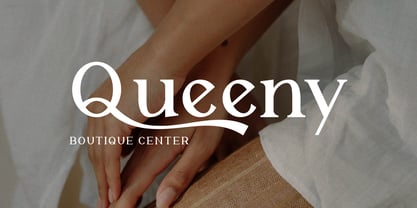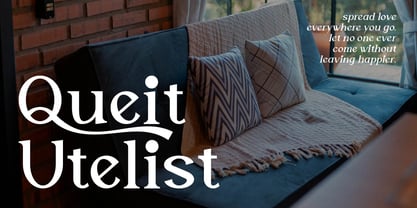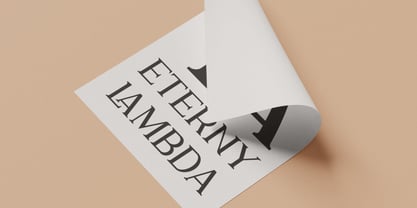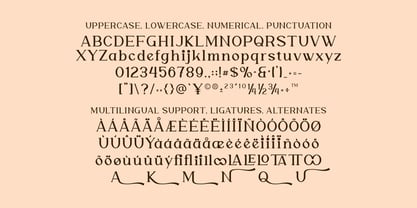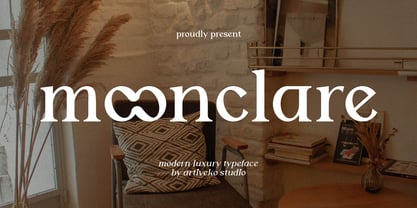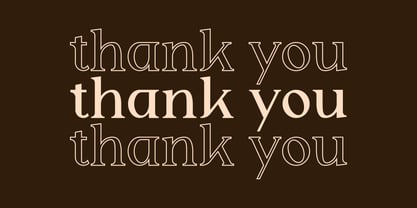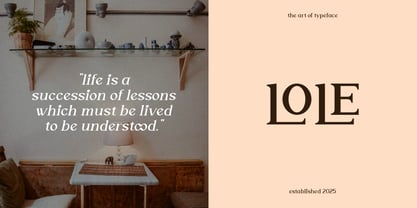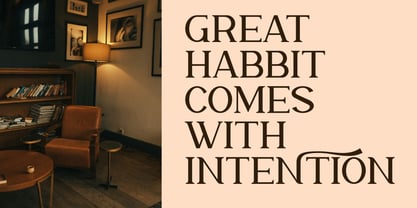
Moonclare
by Artiveko
The Moonclare Font Family was designed by Iwan Alwan and published by Artiveko. Moonclare contains 2 styles and family package options. More about this family
Moonclare is a sophisticated serif font designed to embody elegance, refinement, and timeless beauty. With its high-contrast strokes, graceful curves, and sharp serifs, Moonclare delivers a luxurious and premium aesthetic perfect for high-end branding, fashion editorials, beauty packaging, and upscale logo design.
This font is meticulously crafted to create a sense of prestige while maintaining excellent readability. Ideal for large headlines, monograms, and statement pieces, Moonclare adds depth and exclusivity to every project.
The font includes uppercase and lowercase characters, numerals, punctuation, multilingual support, and stylish ligatures that allow designers to create custom, elevated typography.
Whether you are designing for a luxury brand, a wedding suite, or editorial content, Moonclare offers the perfect blend of modern sophistication and classic charm. Make your design stand out with Moonclare — where elegance meets perfection.
Designers: Iwan Alwan
Foundry: Artiveko
About Artiveko
Artiveko is a font design team based in Indonesia, comprised of several talented font designers who commenced their careers in the font design industry in 2020. With a dedicated focus on crafting fonts, the team members bring their collective expertise and passion to every project they undertake. Situated in Indonesia, Artiveko draws inspiration from the vibrant cultural landscape of the region, infusing their creations with unique flavors and aesthetics.The team's font collection encompasses a diverse range of styles, including serif, sans serif, handwritten, and script typefaces. Each typeface is meticulously crafted to meet the demands of modern design while offering versatility and functionality across various applications. Whether it's the classic elegance of serif fonts, the contemporary appeal of sans serif designs, the personal touch of handwritten scripts, or the expressive flourishes of script fonts, Artiveko ensures that every font reflects their dedication to quality and innovation.Artiveko's fonts have garnered recognition and acclaim, with their works being featured on prominent social media platforms like Creative Market. Through these platforms, the team has been able to connect with a global audience of designers and typographers, further amplifying their reach and influence in the industry. Their fonts are celebrated for their impeccable craftsmanship, attention to detail, and ability to elevate design projects with style and sophistication.As Artiveko continues to evolve and expand its font collection, the team remains committed to pushing the boundaries of typography and setting new standards of excellence. With a relentless focus on creativity, innovation, and collaboration, Artiveko strives to inspire and empower designers around the world with their distinctive and versatile font designs.